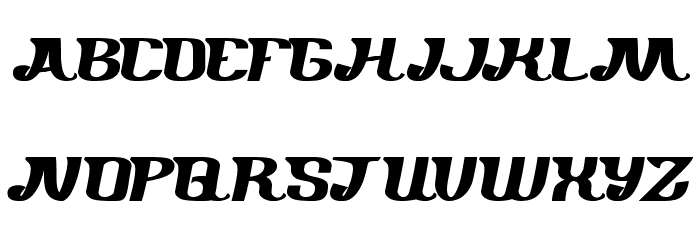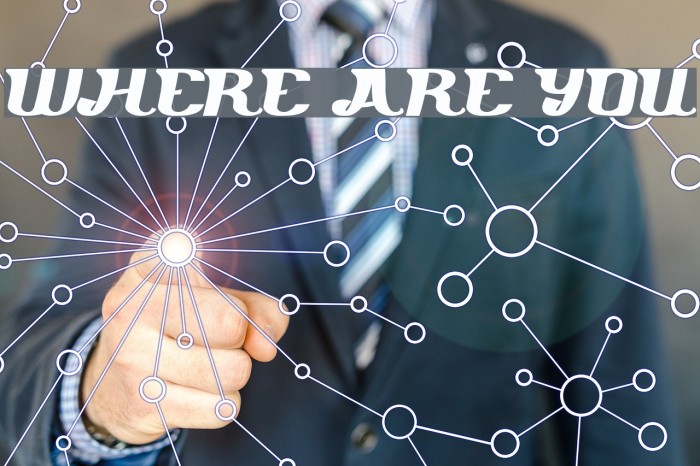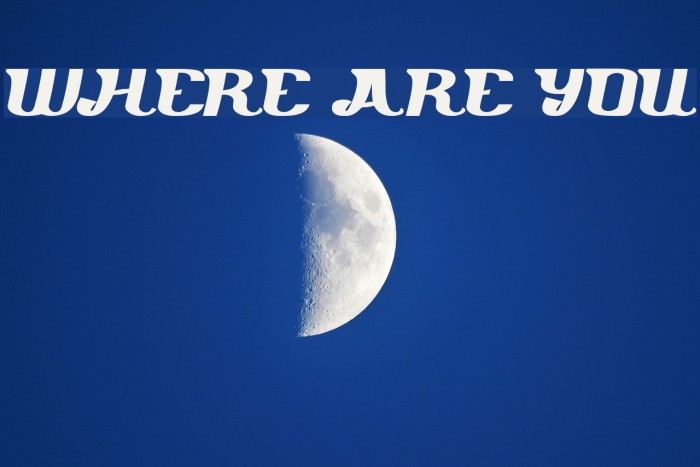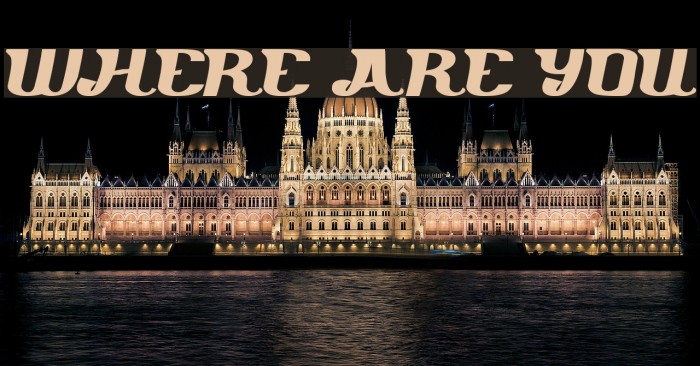
where are you Font
This font exhibits a bold, decorative style with a unique flair. Each letter is crafted with a distinctive flourish, giving it a dynamic and artistic appearance. The uppercase letters have a strong presence, with thick strokes and subtle curves that add elegance. The lowercase letters maintain the same boldness, ensuring consistency throughout the typeface. The numbers and special characters are equally stylized, making this font suitable for creative and expressive designs. Its bold nature and artistic elements make it stand out, perfect for projects that require a touch of sophistication and creativity.
A bold, decorative font with artistic flourishes and strong presence.
- Proposed Projects: Ideal for branding, posters, headlines, and any project requiring a bold, artistic touch.